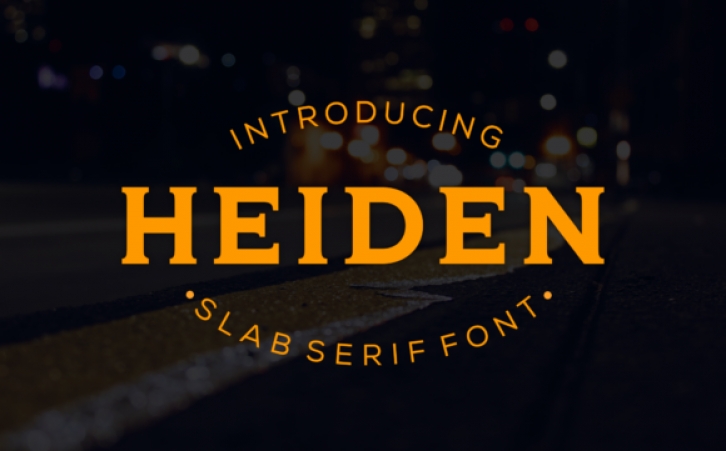
The Heiden is a clean slab serif font that is great for logos, headlines, sign, vintage and retro designs and every other design which needs a striking typeface.